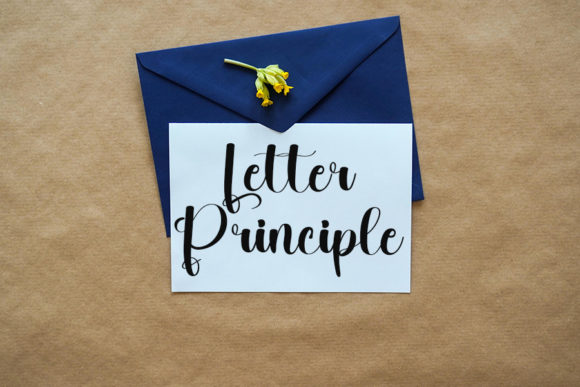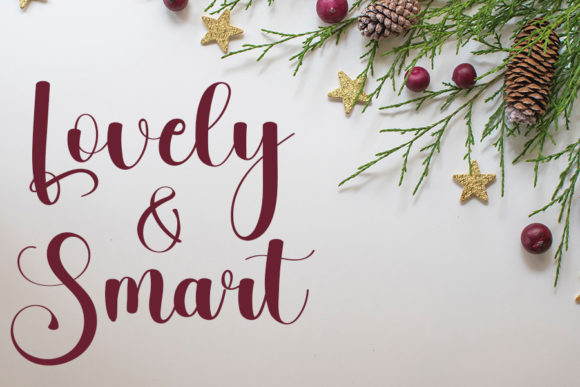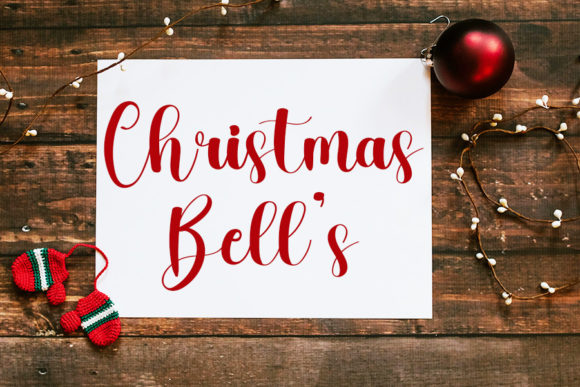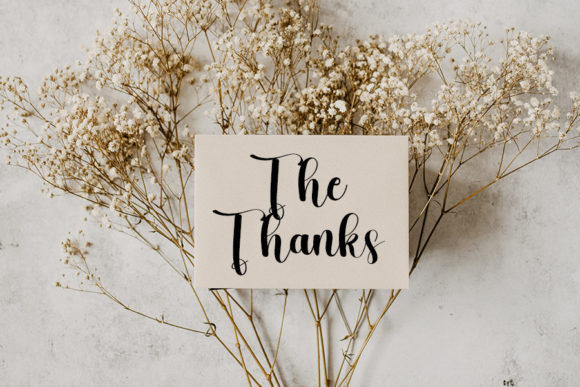
Sample Font
About Sample Font
Introducing “Sample,” a beautiful and refined script font that exudes class, elegance, and modernity. With its sleek and sophisticated appearance, Sample is perfect for a wide range of design applications, including logos, branding, invitations, stationery, wedding designs, social media posts, and much more.
This font’s classy and elegant look adds a touch of luxury to any project, making it stand out with its timeless appeal. Its refined script style brings a sense of sophistication and professionalism to your designs, ensuring that they leave a lasting impression on your audience.
With PUA encoding, accessing the wide array of glyphs and ligatures is effortless, allowing you to customize your designs with ease. Whether you’re adding flourishes, swashes, or other decorative elements, Sample offers endless possibilities for creative expression.
Experience the beauty and versatility of Sample and watch as it transforms your designs into stunning visual masterpieces. Whether you’re a professional designer or a creative enthusiast, this font invites you to explore new possibilities and express yourself with confidence and style.
Unlock the full potential of your designs with Sample and let its beautiful and refined script font elevate your projects to new heights. With its classy, elegant, and modern look, Sample is sure to become a cherished addition to your design toolkit, inspiring creativity and sophistication with every use.